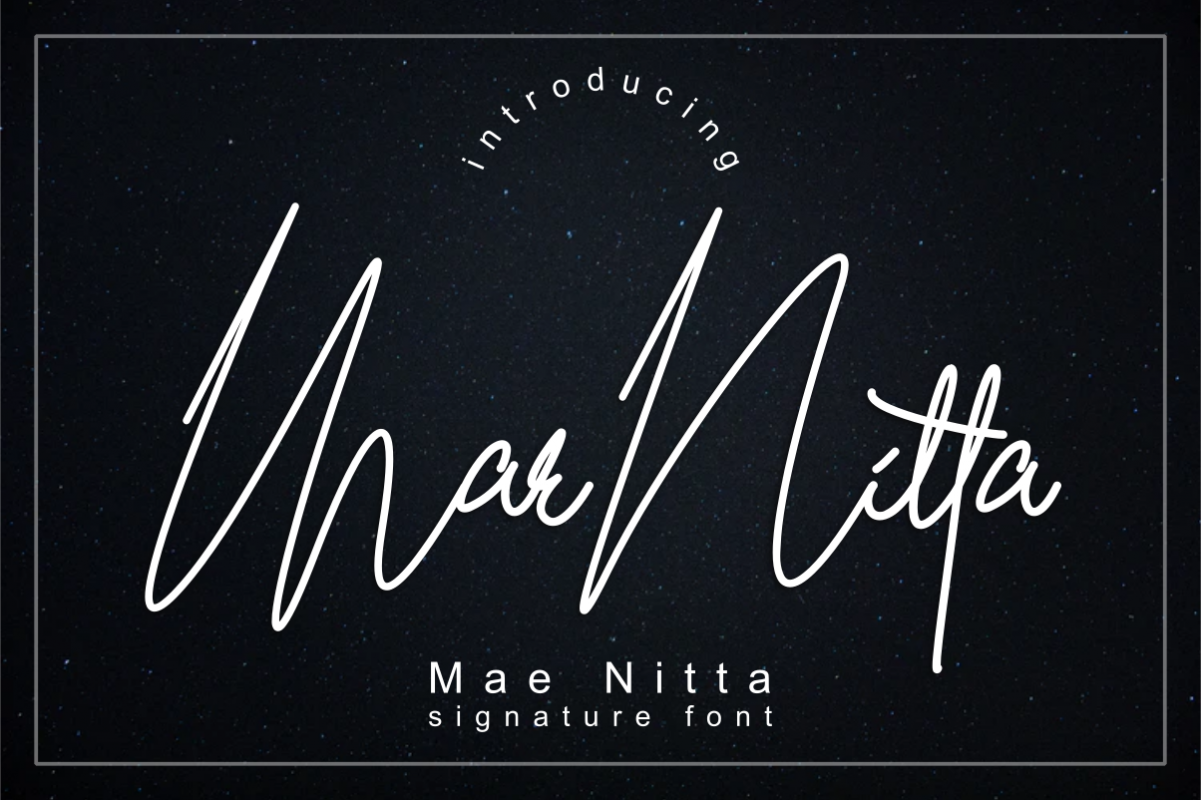
Mae Nitta
Mae Nitta is a simple and stylish signature font . It is made for any designs with woman's handwritten like - signature font. Feel free to play around with this font for your design project.
Feature:
Basis Letter: A - Z and a - z
Number & Functional
Ligature
Swashes